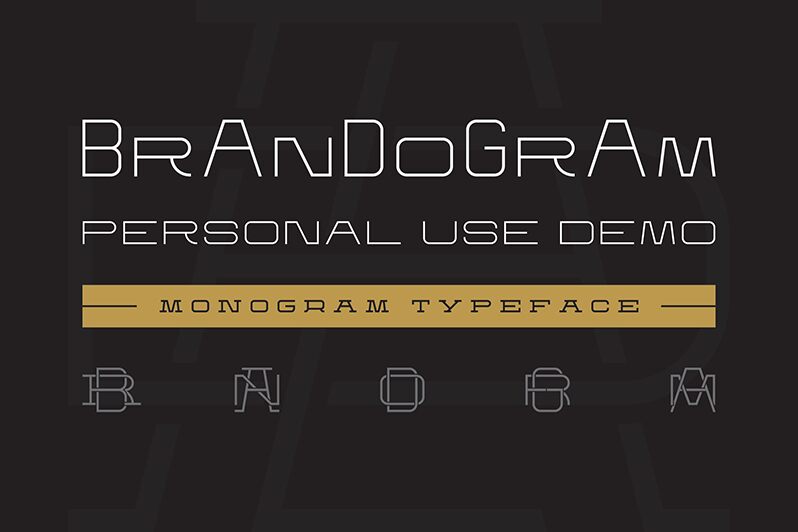
Brandogram, the latest creation by Design a Lot, is an extra-light sans serif font that promises to bring a modern twist to your designs. With its unique extra-expanded width, Brandogram is perfect for creating bold headlines and eye-catching logos that demand attention. The clean and sleek lines of this typeface make it suitable for a variety of projects, from minimalist website designs to futuristic packaging labels. Whether you're looking to create a brand identity or simply want to add some personality to your project, Brandogram is the font for you. It's time to take your designs to the next level with this one-of-a-kind font!
After months of testing and development, we have managed to put together the Brandogram Typeface, an ultimate tool for monogram design. With the help of this typeface you can easily create a monogram in less than a minute.
Thanks to the way we have created and optimised Brandogram, the uppercase letters effortlessly fit together with the small caps that are activated by the lowercase letters.